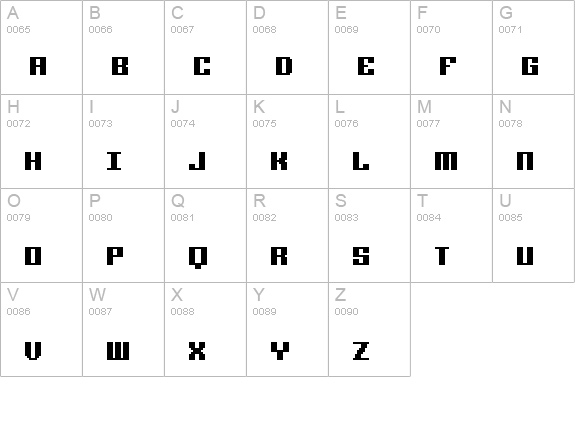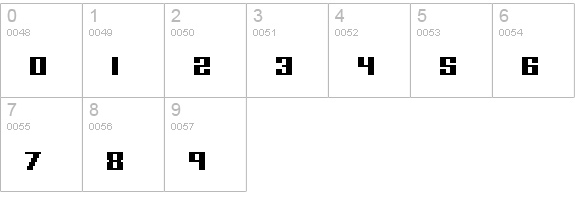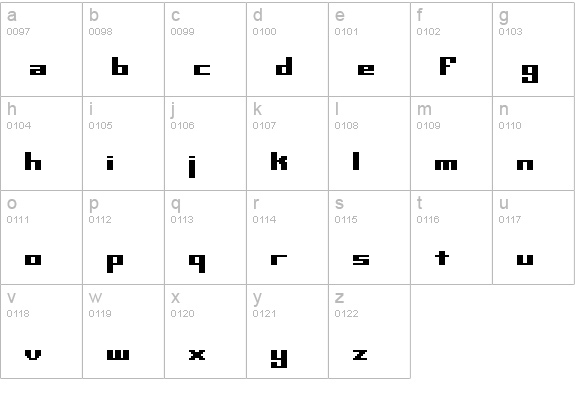
Mini Kaliber S TT BRK Font Details
Mini Kaliber S TT BRK font is a modern and stylish typeface that exudes a sleek and sophisticated vibe. With its clean lines and sharp edges, this font is perfect for creating eye-catching designs that demand attention. The Mini Kaliber S TT BRK font is versatile and can be used for a variety of projects, from branding to editorial design. The best part is that this font is completely free to download! You can easily get your hands on the Mini Kaliber S TT BRK font at FontsMarket.com. Don't miss out on this fantastic opportunity to enhance your design projects with this elegant and contemporary typeface. Download it now and let your creativity shine!